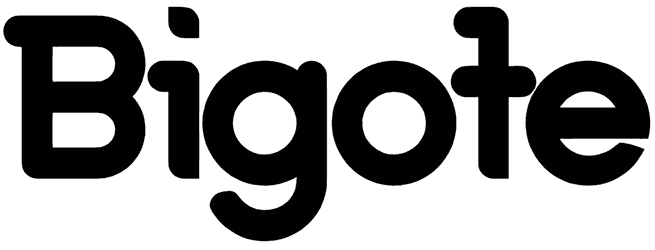
Bigote Font
Sometimes you must use a slab serif font such as Bigote in your posters, illustrations, logos, menus, and invitations to prove the fact that you are a professional graphic artist.
Since its characters are designed with a considerable amount of precision and accurate curves, this fancy font can add a sense of playfulness, dynamism, and dreaminess to your artwork. In comparison with its numerous benefits, the lack of numbers and punctuation won’t be a serious problem.